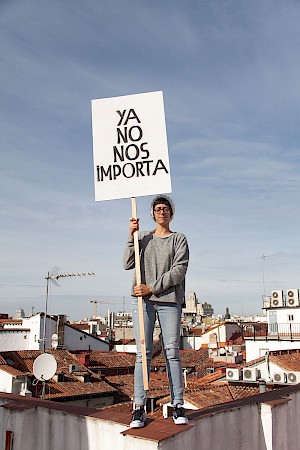
First version as posted on Velvetyne, BackOut is a kind of African Glyphic typeface. Its name refers to Bob Marley's eponym song.
BackOut 2.0 (code name: Abomey) was created by Ariel Martín Pérez during the very hot summer of 2019. The 2.0 version of BackOut is a faithful review of Frank's original with improved spacing and kerning, corrected contrast, new lowercase letters and extended language support and functionalities.
The 2.1 version of Backout presents improved spacing and kerning, some new ligatures and some subtle optical adjustments.